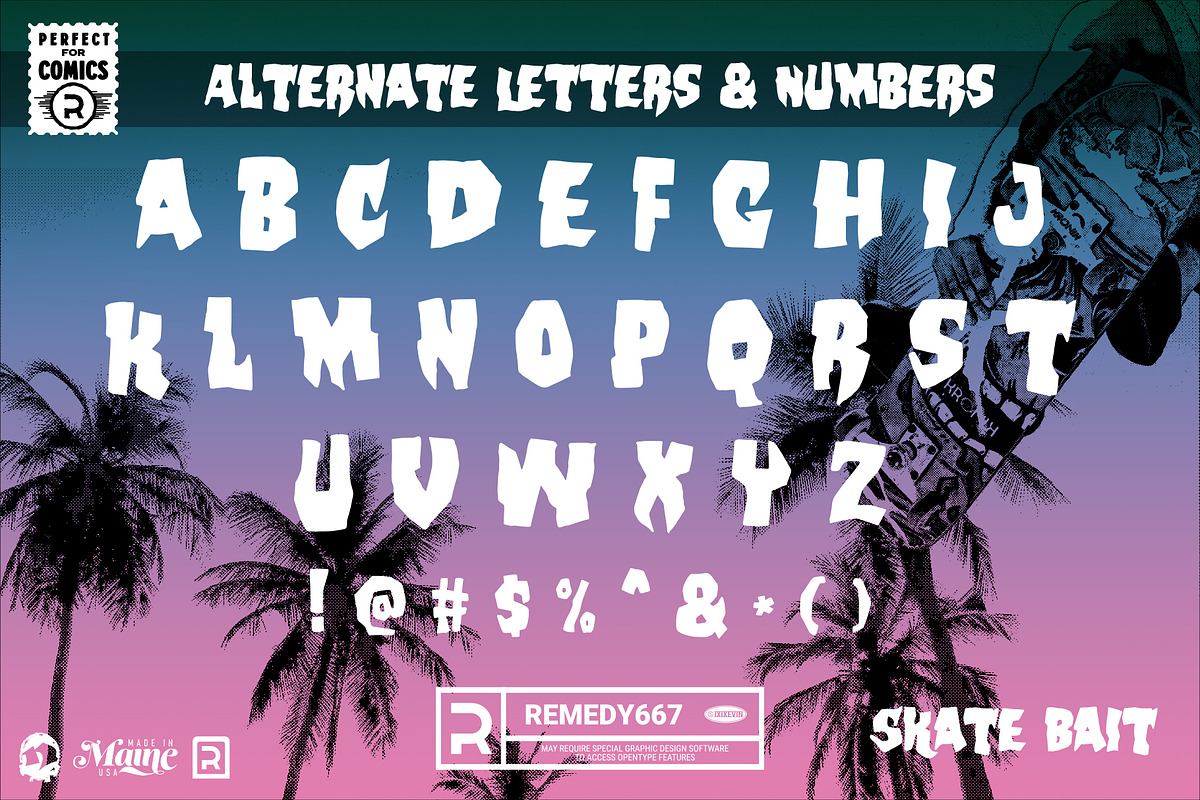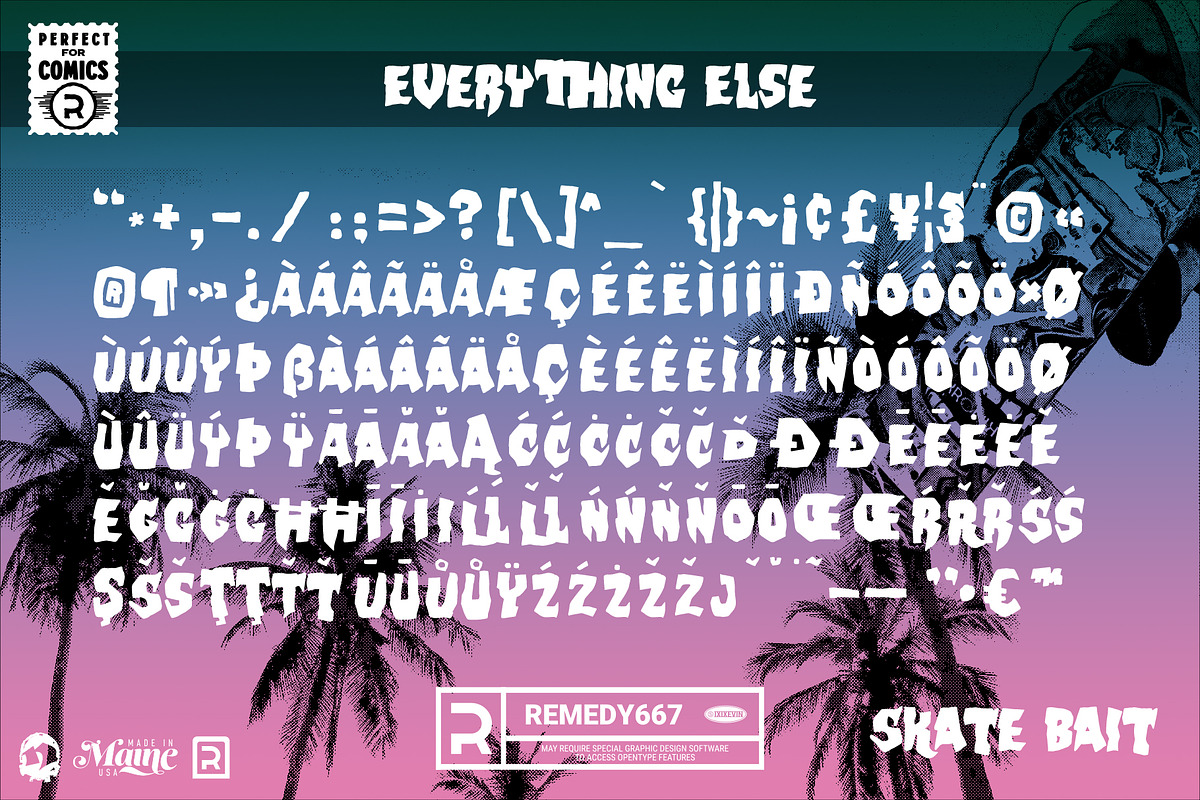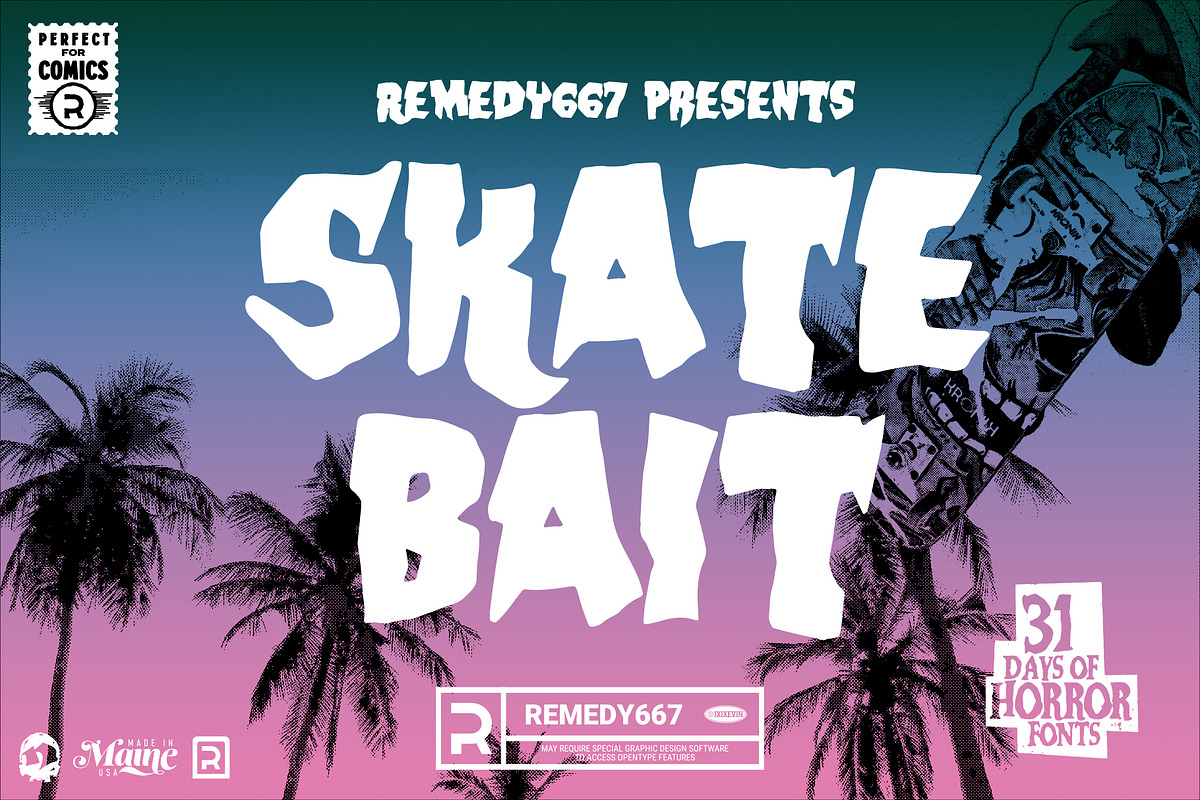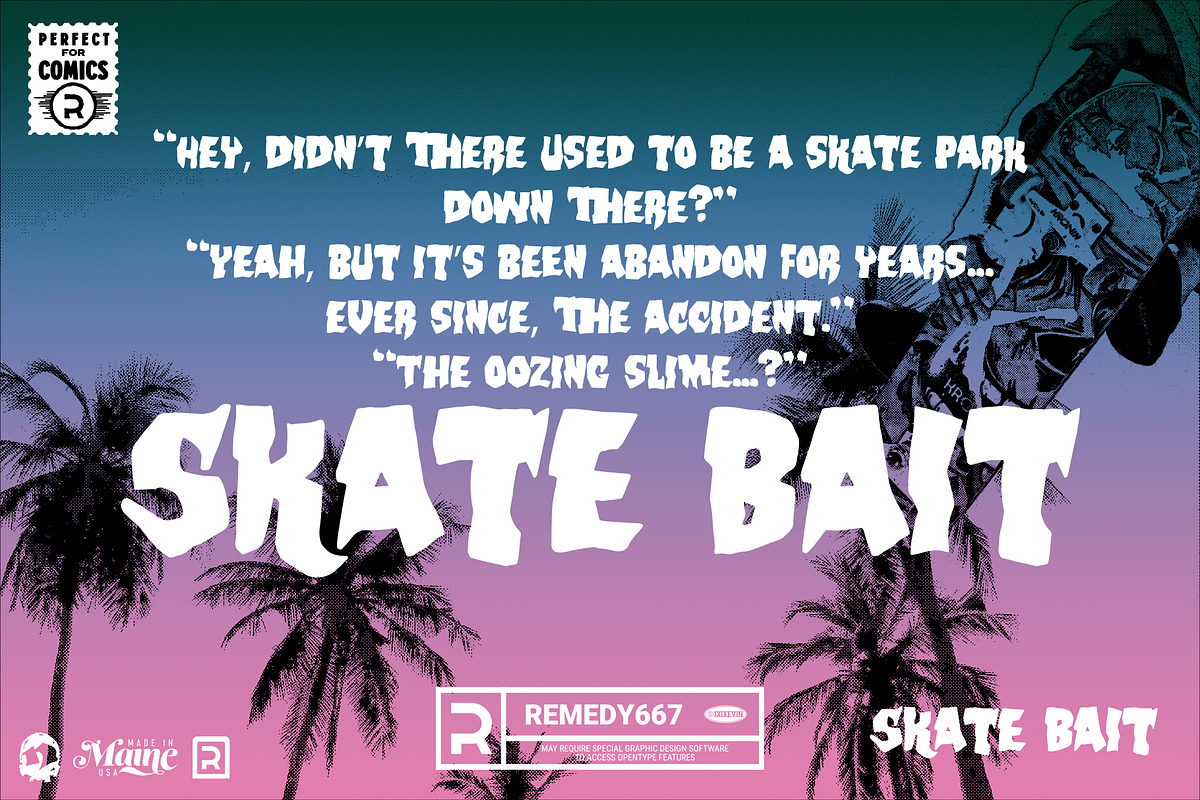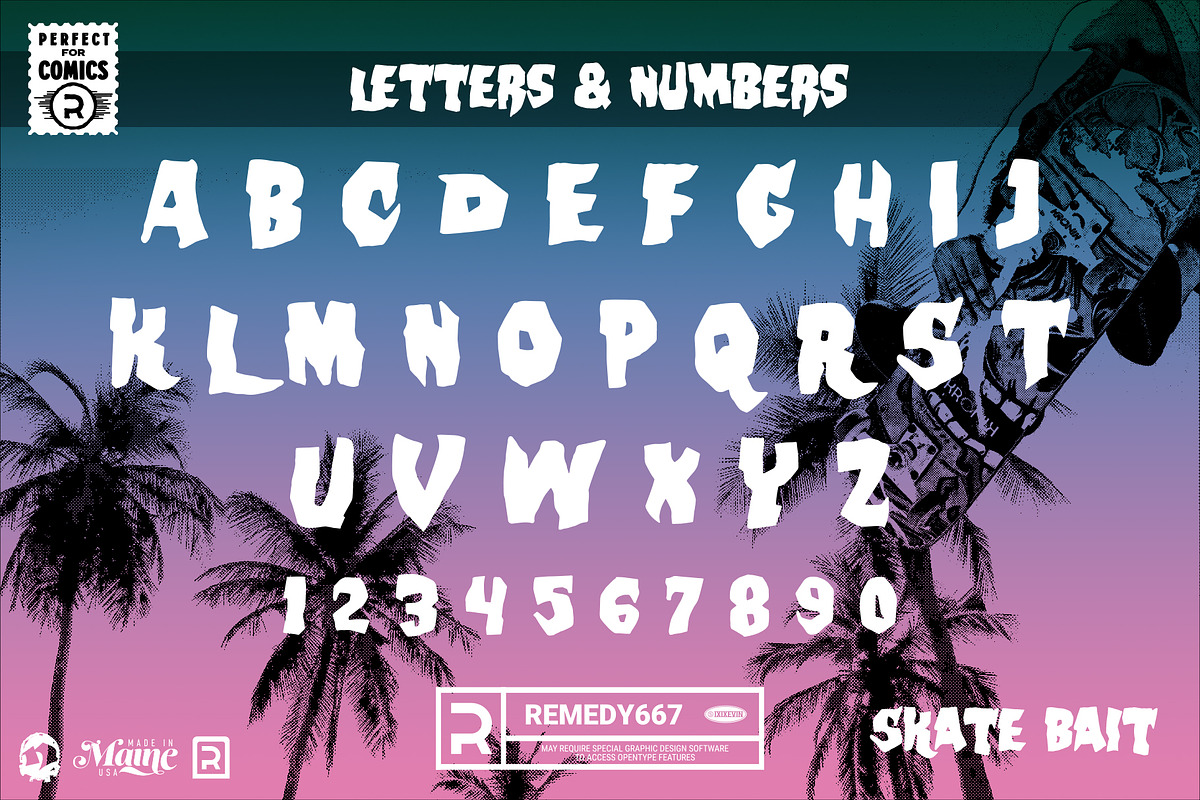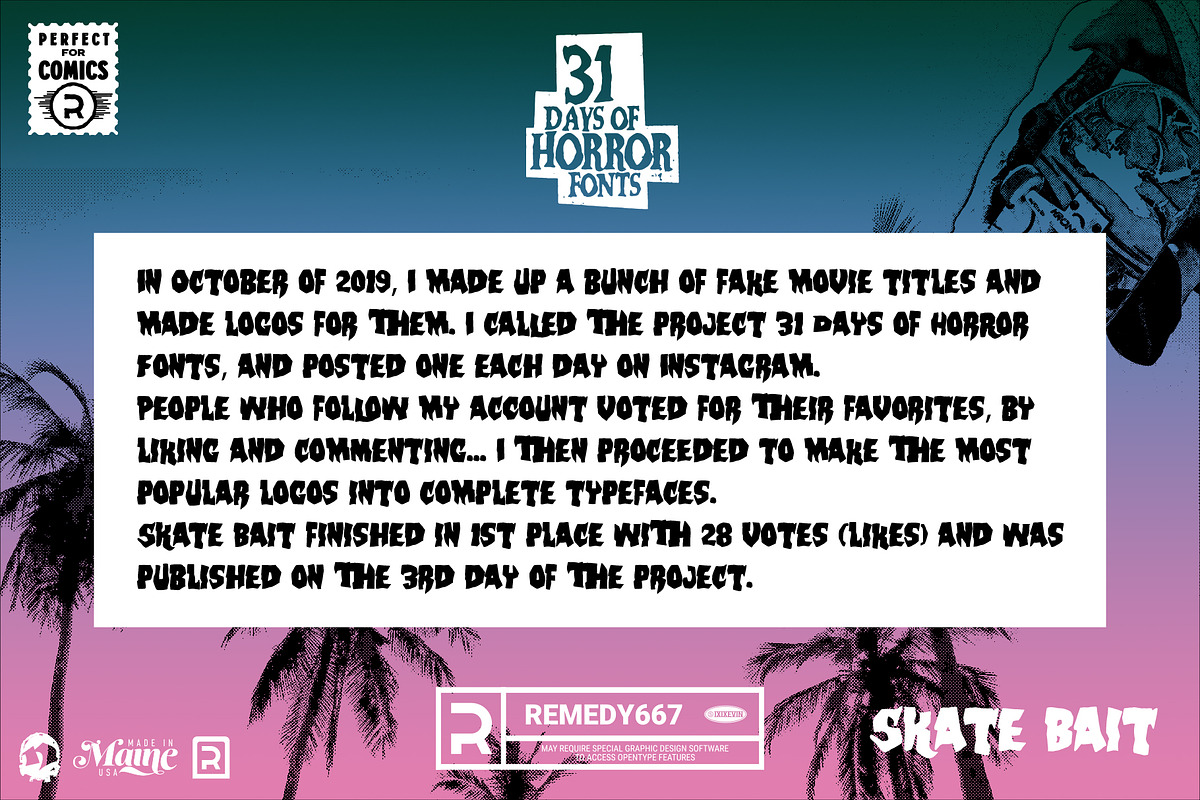
Skate Bait - 80s Font
Skate Bait draws its influence from classic Italian horror film posters, but is presented in a more light hearted and modern way. It’s perfect for books, zines, posters, skateboards, packaging… anything you want to give that 80’s skate-punk feel. Kickflip that shit up a notch.
31 Days of Horror Fonts
In October of 2019, I made up a bunch of fake movie titles and made logos for them. I called the project 31 Days of Horror Fonts, and posted one each day on Instagram. People who follow my account voted for their favorites, by liking and commenting… I then proceeded to make the most popular logos into complete typefaces.
Skate Bait finished in 1st place with 28 votes (likes) and was published on the 3rd day of the project.